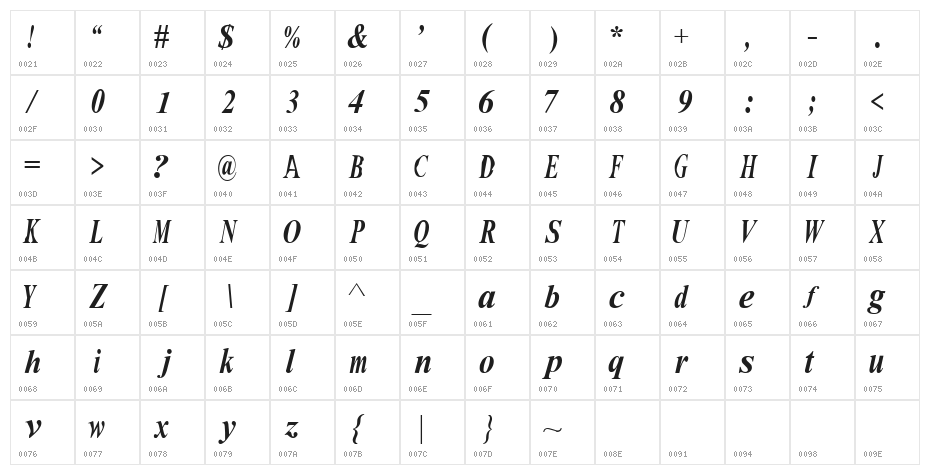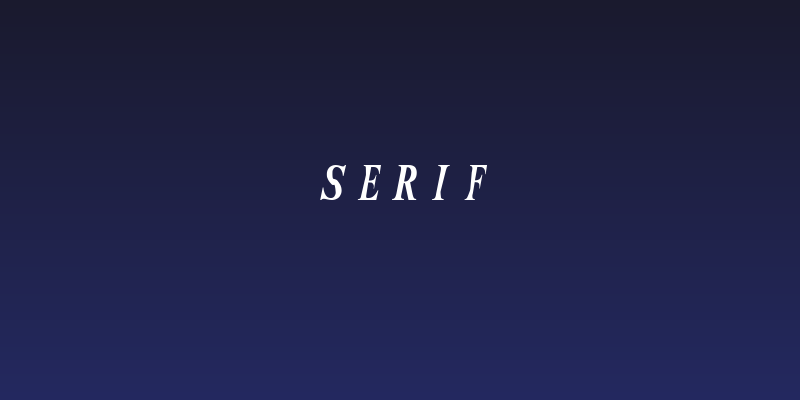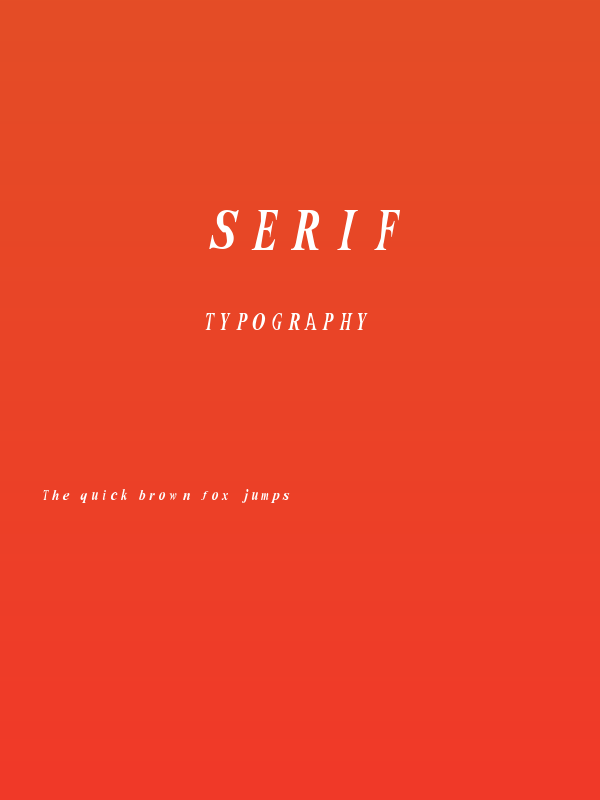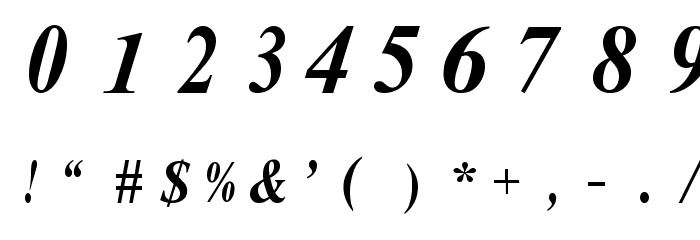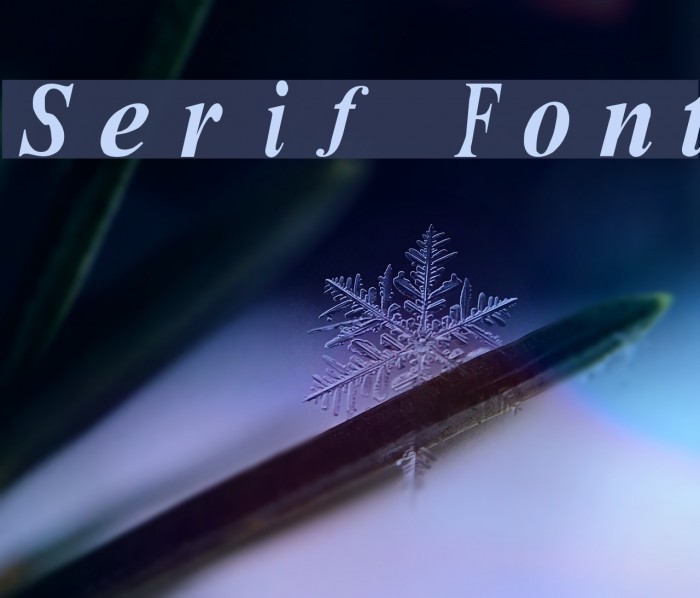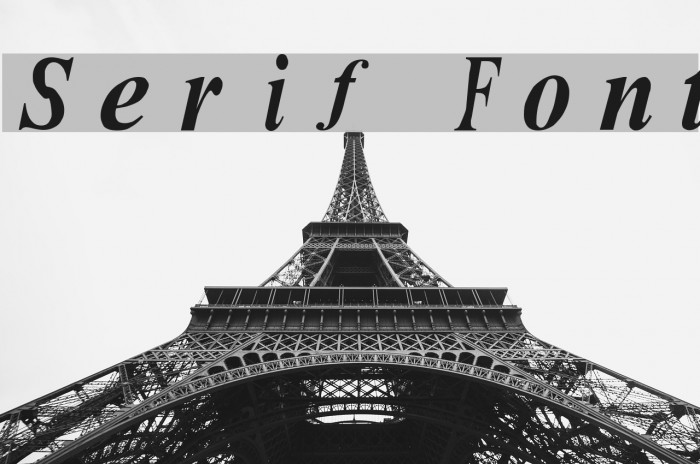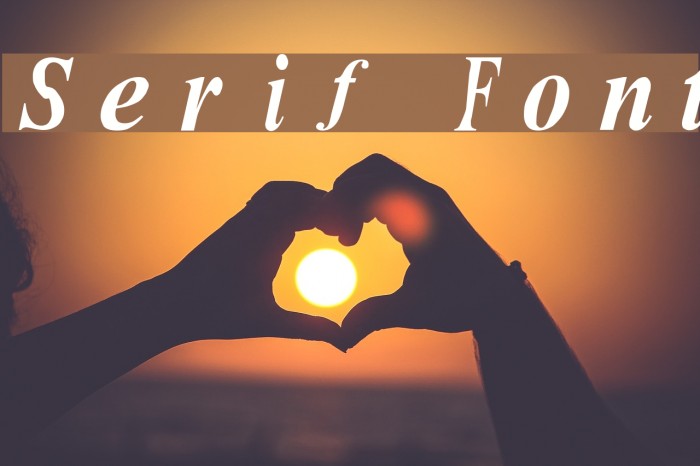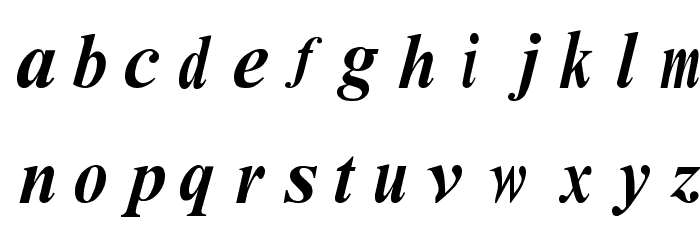
Serif Font
Serif Description
This font exhibits a classic serif style with elegant, flowing lines and a distinct slant, giving it a sophisticated and timeless appearance. The uppercase letters are bold and commanding, while the lowercase letters maintain a graceful and slightly italicized form. The numerals are well-proportioned, complementing the overall aesthetic. Special characters are crafted with attention to detail, enhancing the font's versatility. The serifs are pronounced, adding to the traditional feel, yet the overall design remains modern and stylish.
| Proposed Projects | Ideal for projects requiring a touch of elegance and tradition, such as wedding invitations, formal event programs, or luxury brand logos. |